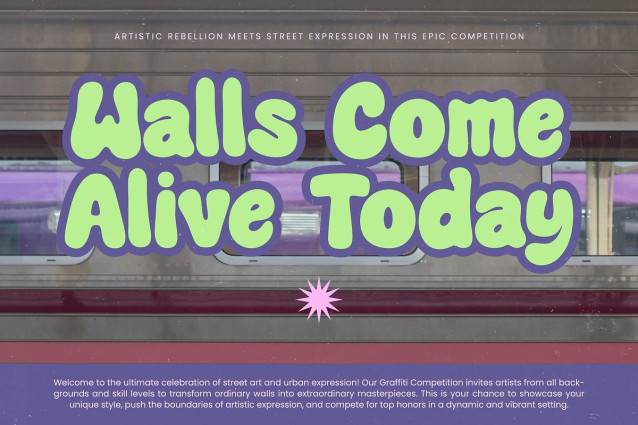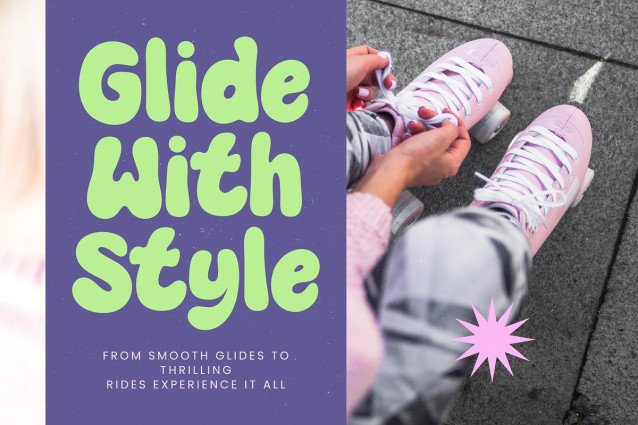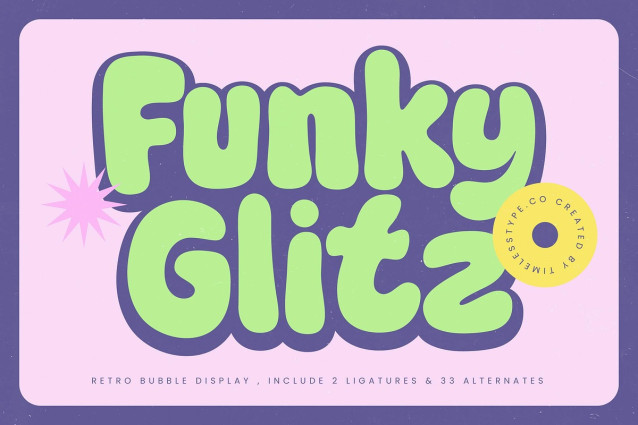
Funky Glitz Font
Funky Glitz Font – Retro Bubble Display , from Timelesstype.Co , Step into a world of vibrant energy and expressive charm with Funky Glitz, a typeface designed to make your message dance right off the page. It radiates a sense of pure joy, turning every word into a celebration of bold, rounded aesthetics.
Drawing inspiration from the psychedelic curves of the seventies and the playful pop culture of the nineties, this font captures the essence of a carefree era. It’s built for those who want to infuse their projects with a nostalgic yet fresh atmosphere that feels both familiar and exciting.
This retro bubble display brings a unique playful typography vibe to any layout, ensuring your message carries a massive branding impact. With its thick, pillowy forms and bold display font presence, it offers a distinct character-driven design that refuses to be ignored.
Perfectly aligned with the current modern retro trend, this typeface taps into the resurgence of bubble font style within the creative industry. It provides designers with the essential tools to stay ahead of the curve using high-energy playful display fonts.
Whether you are crafting a standout logo design or eye-catching packaging, this font thrives in environments that demand attention like apparel and social media graphics. It is equally at home in poster design and comprehensive branding systems that need a touch of whimsical flair.
Packed with creative flexibility, the set includes custom ligatures and a wide array of alternates to customize every letterform. Full multilingual support and international characters ensure your message reaches a global audience with premium stylistic consistency.